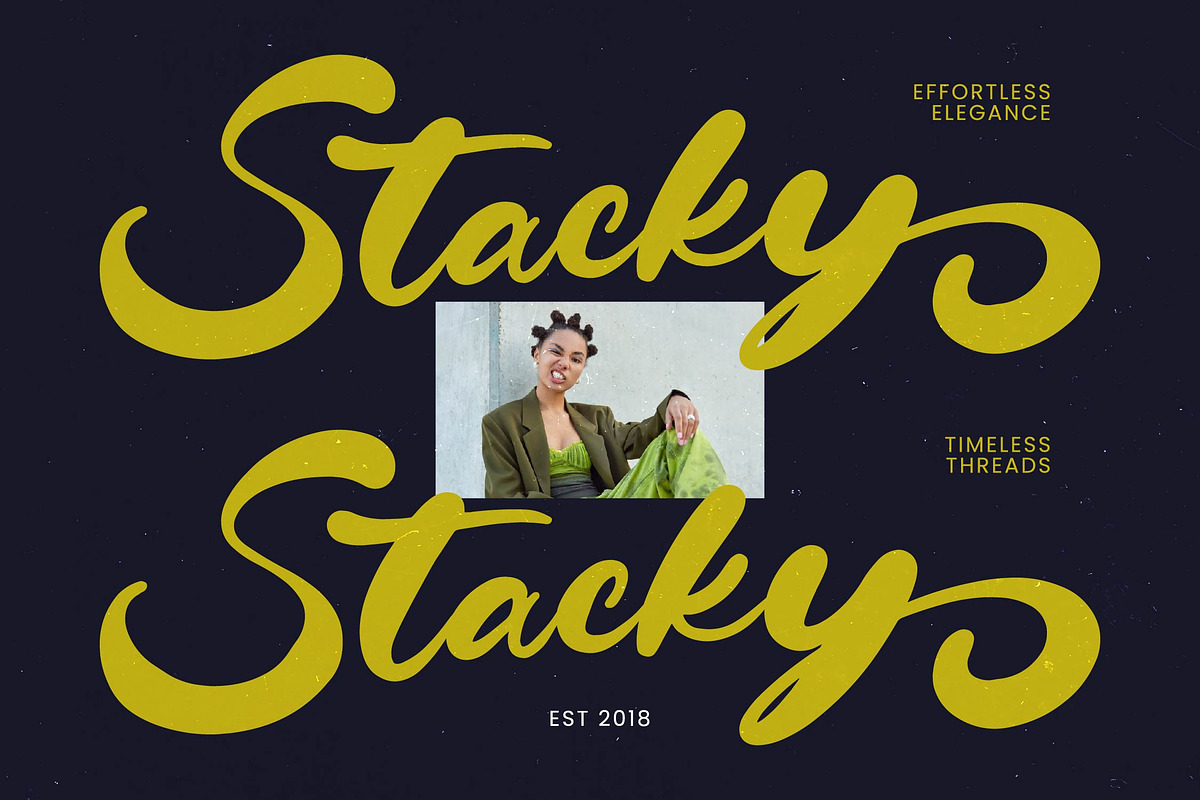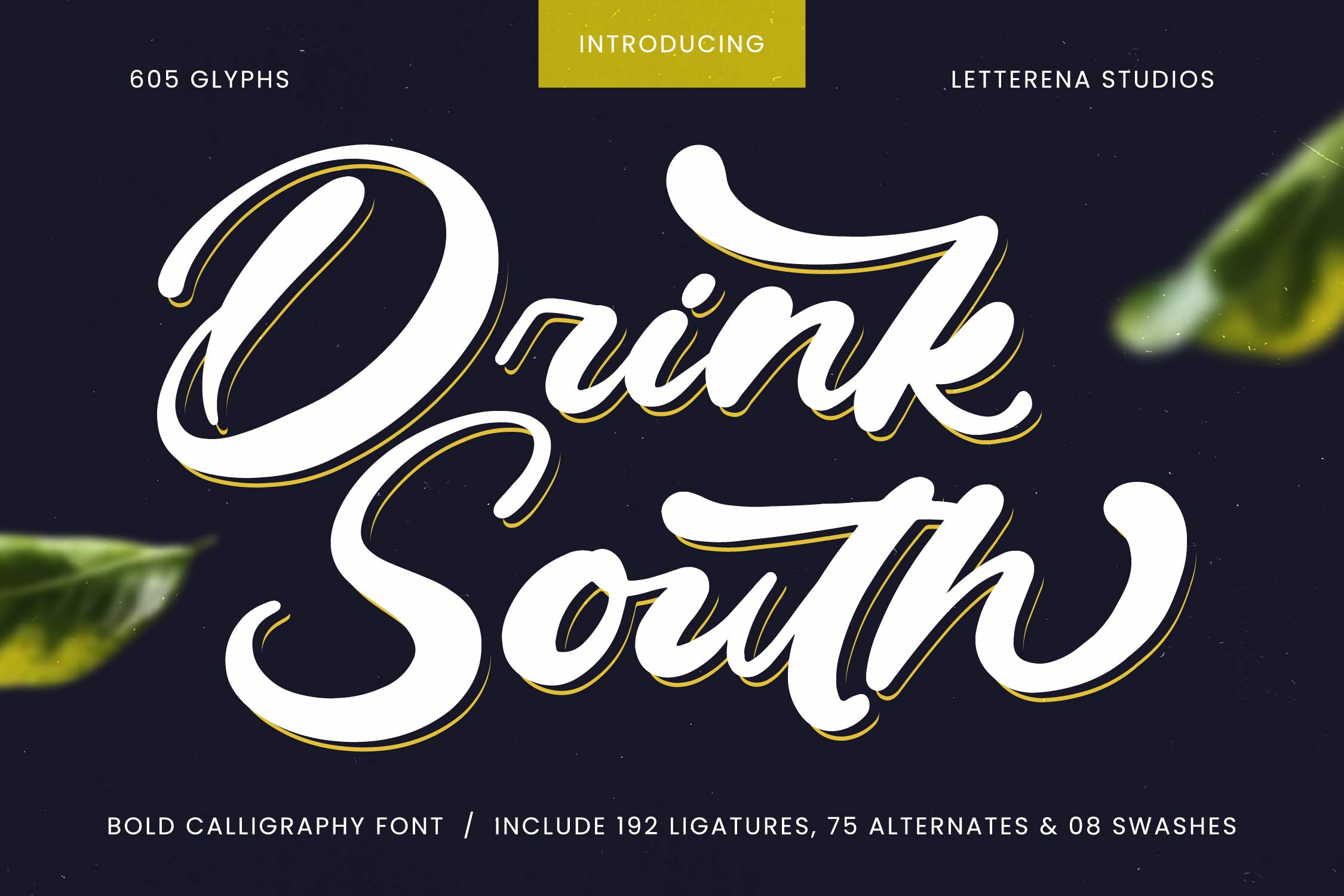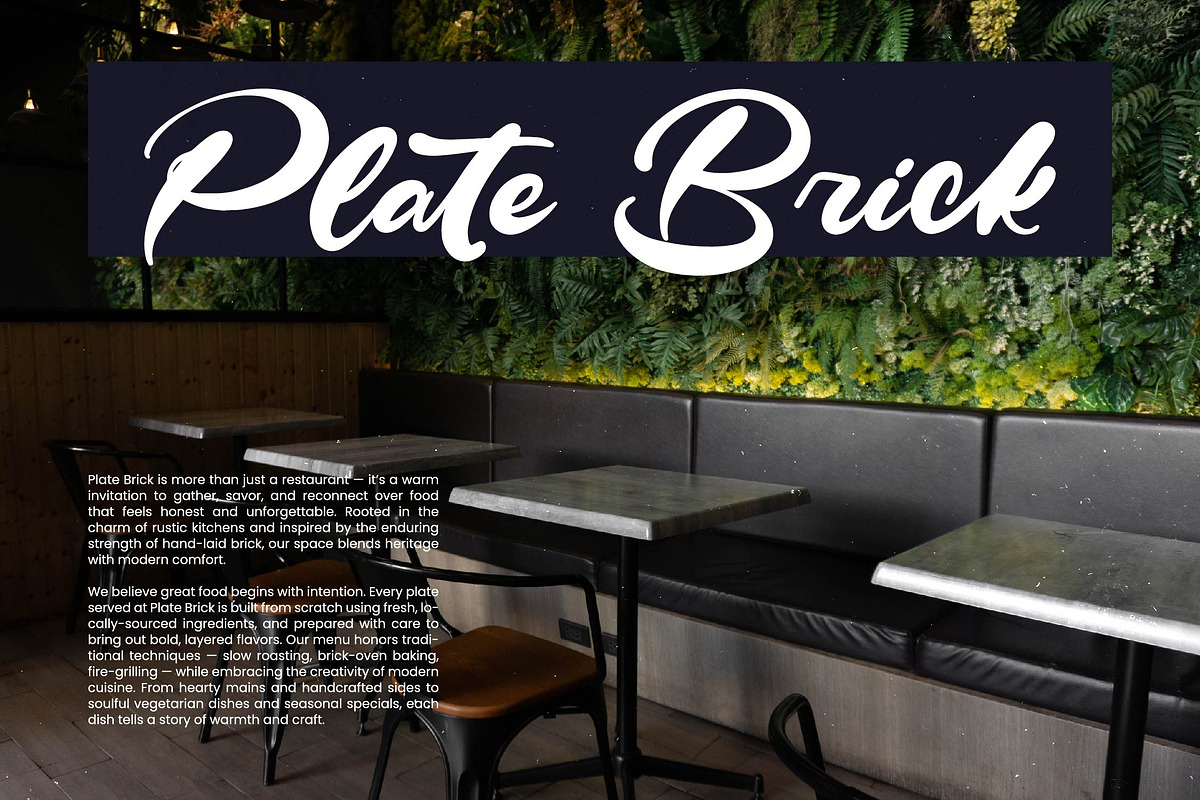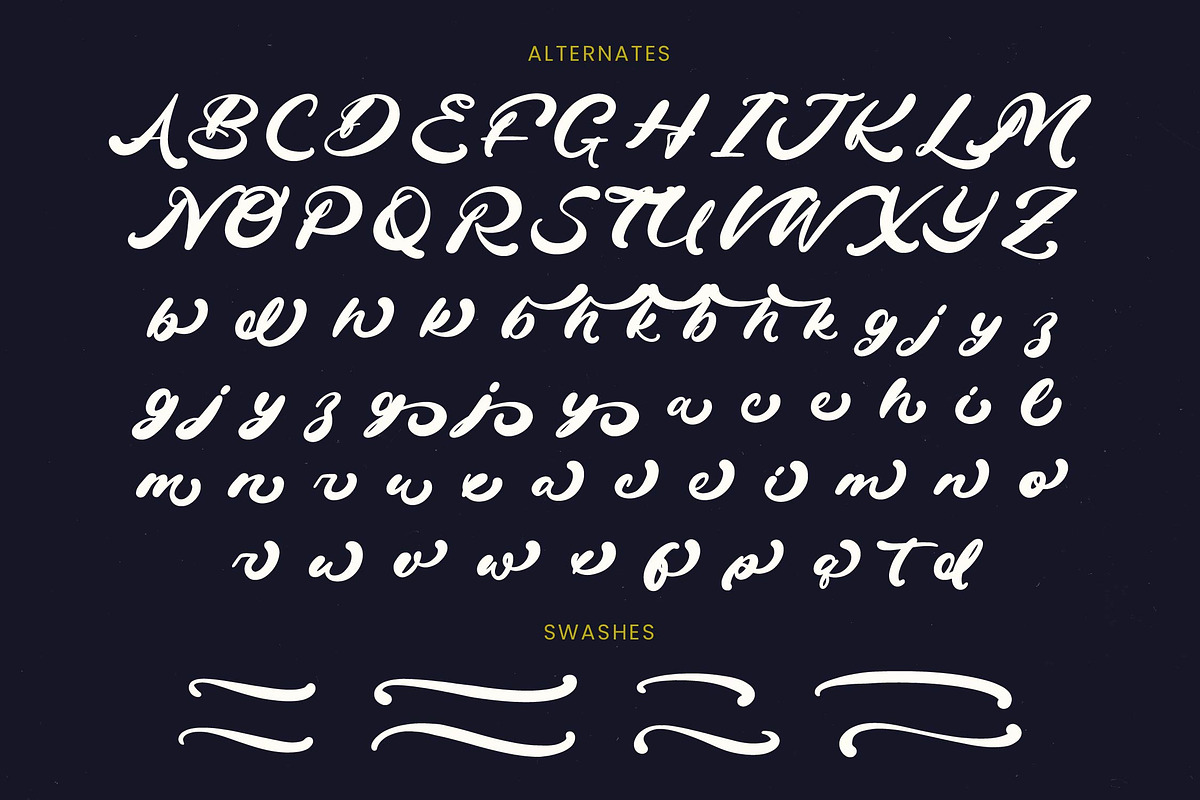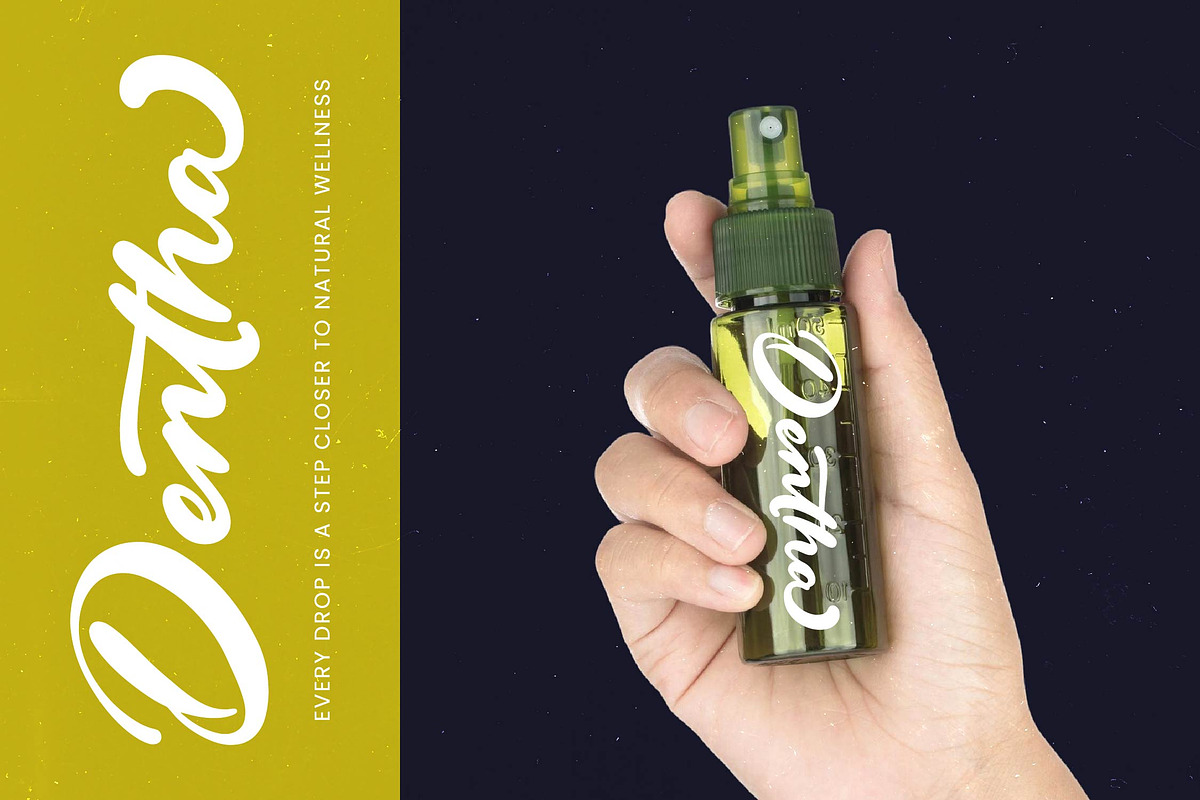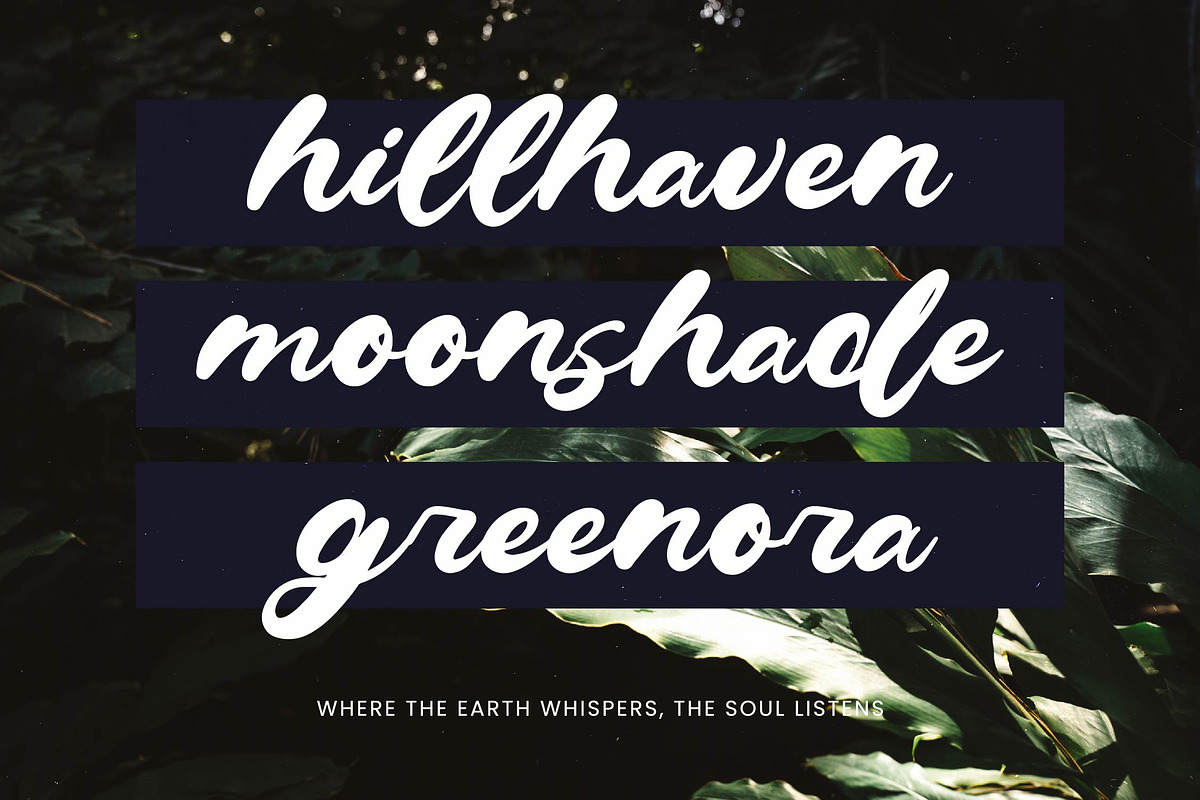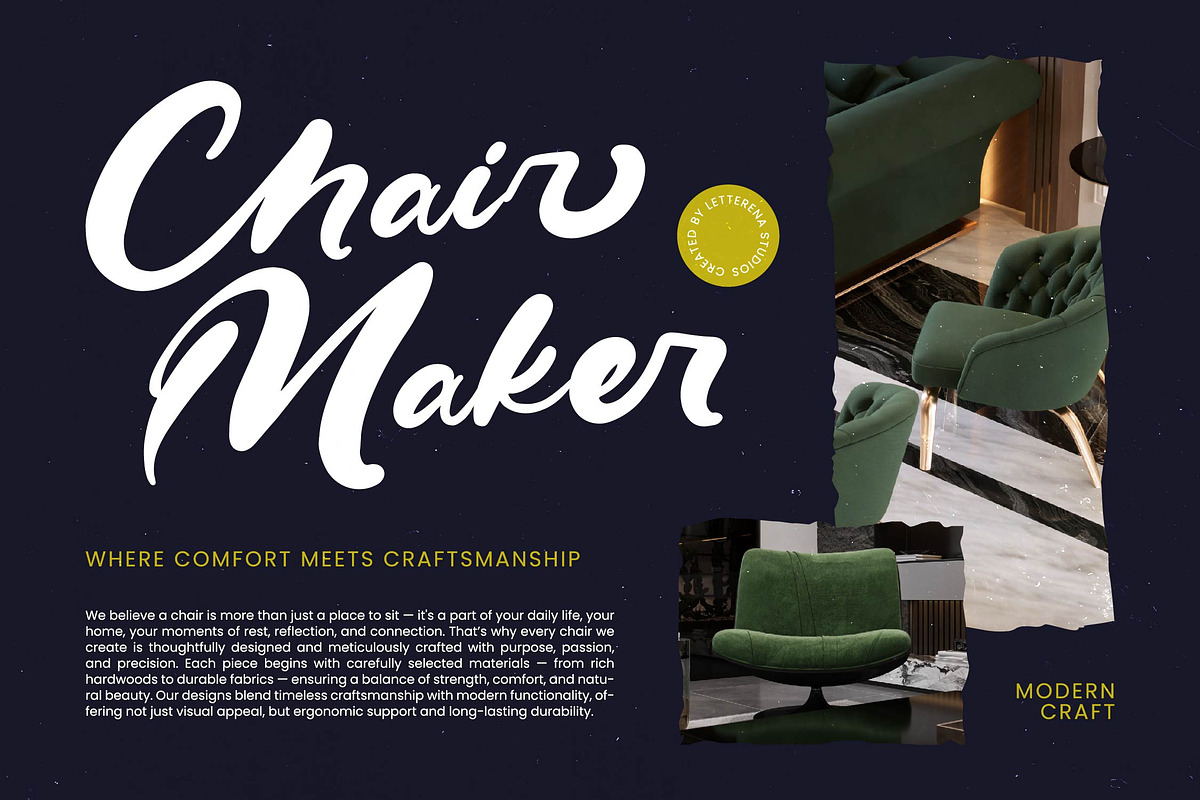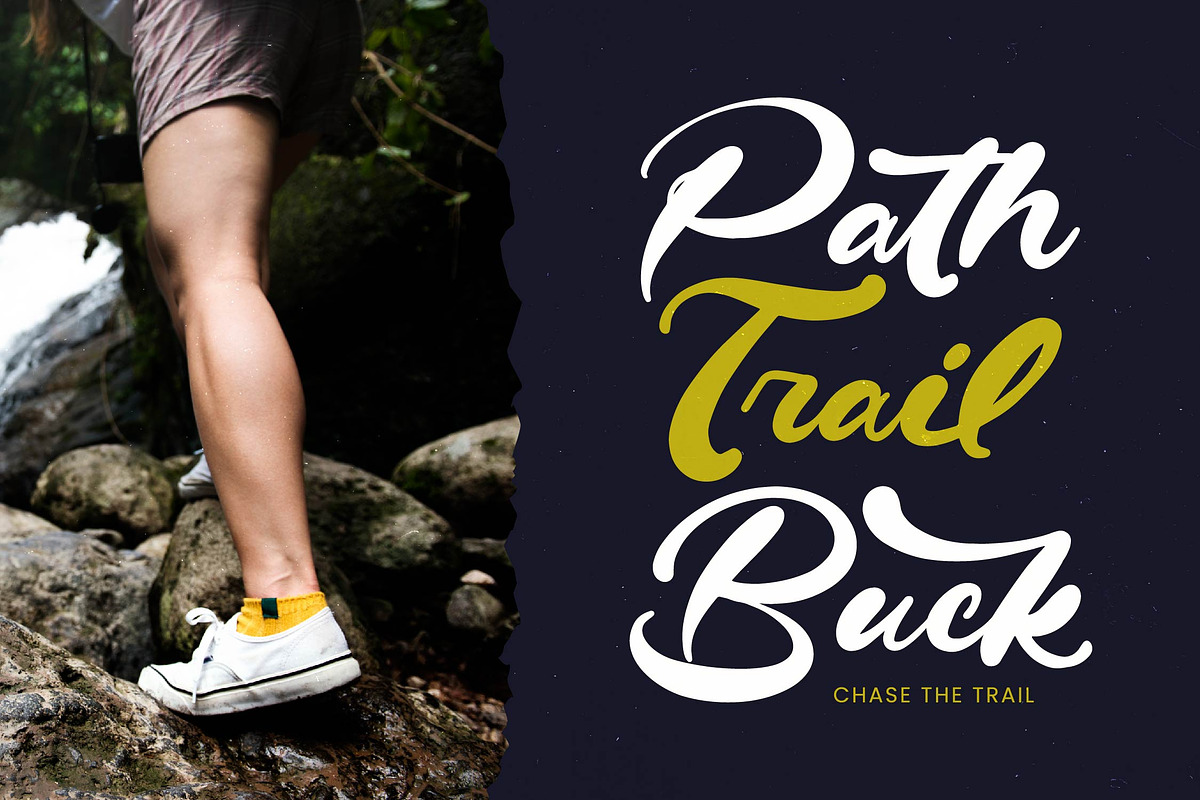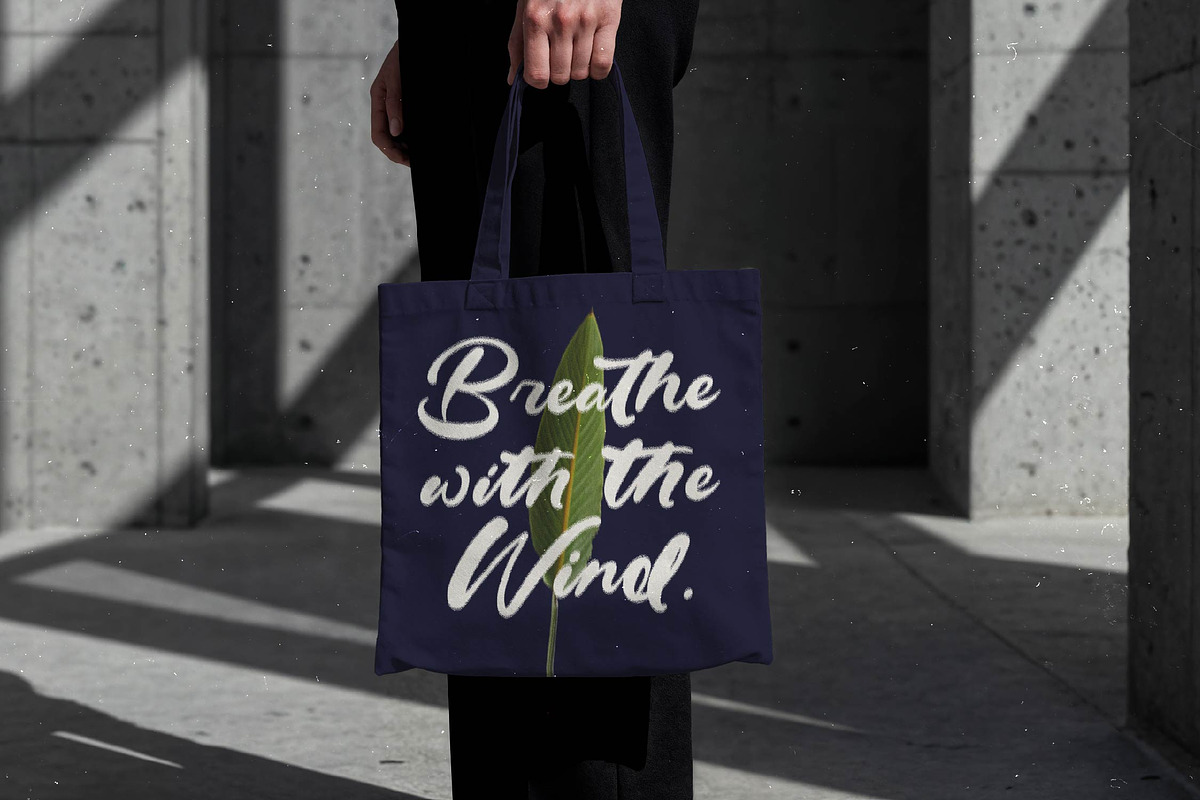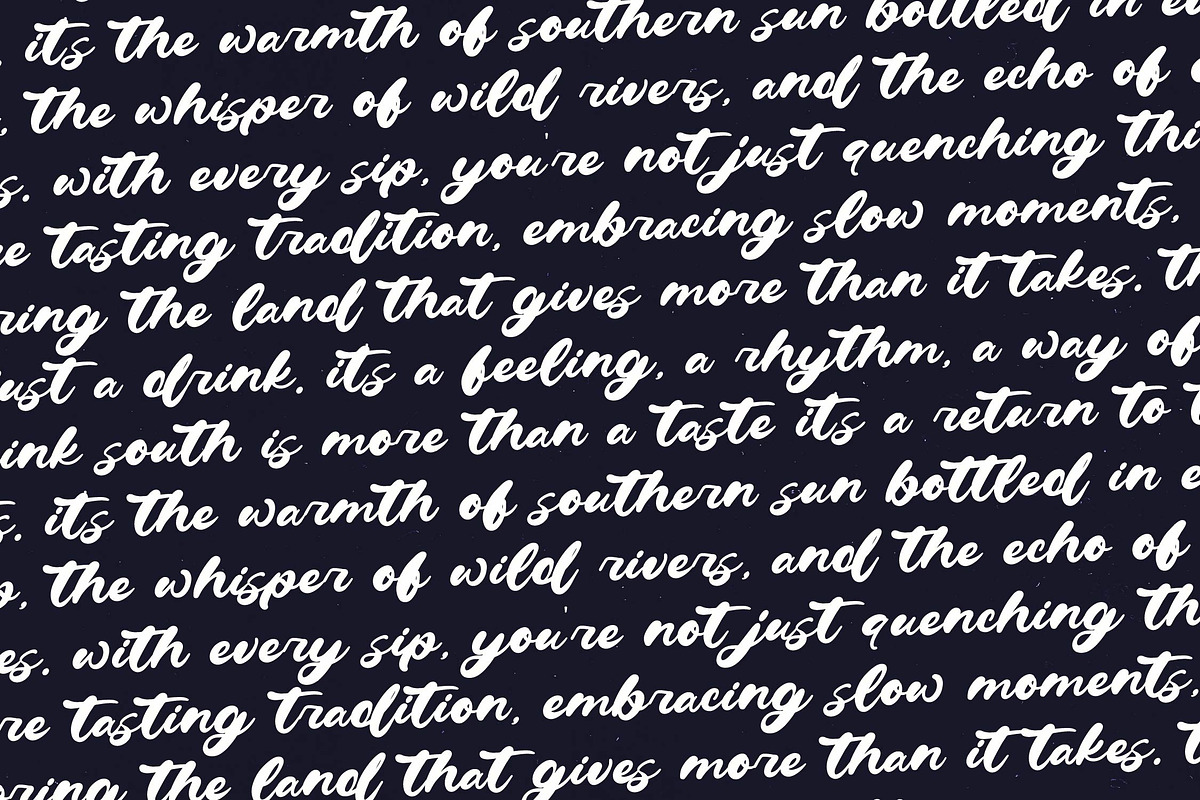
Drink South Bold Calligraphy Font
Drink South - Bold Calligraphy Font , from Letterena, is a Luxury Script font, suitable for any projects such as: logos, branding projects, homeware designs, product packaging, mugs, quotes, posters, shopping bags, t-shirts, book covers, name card, invitation cards, greeting cards, label, photography, watermark, special events, and all your other luxury and beautiful projects that need a Luxury Script taste.
- 192 Ligature 75 Alternate & 08 Swashes